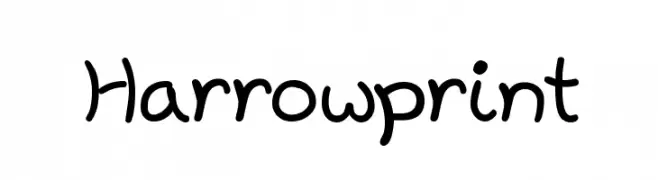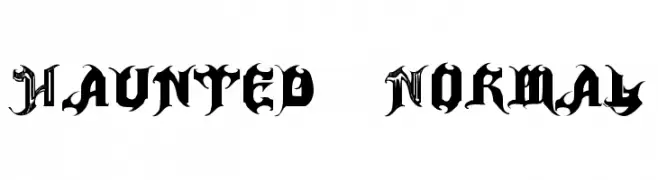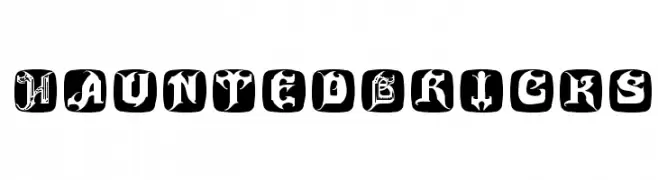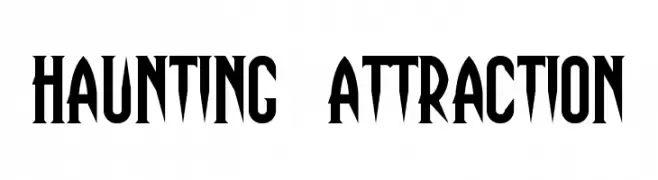
( Fonts by Andrew Harrison )
A lively and dynamic handwritten font with fluid strokes and playful tilt.
( Fonts by Steve Ferrera )
A spooky, jagged font ideal for Halloween or eerie themes.
( Fonts by Manfred Klein - manfred-klein.ina-mar.com )
A gothic, medieval-inspired font with ornate, high-contrast letterforms.
( Fonts by Manfred Klein - manfred-klein.ina-mar.com )
A gothic-inspired font with letters in rounded square bricks, perfect for spooky designs.
( Fonts by Sinister Visions - Chad Savage - www.sinisterfonts.com )
A bold, gothic-style font with sharp, elongated serifs for a dramatic effect.